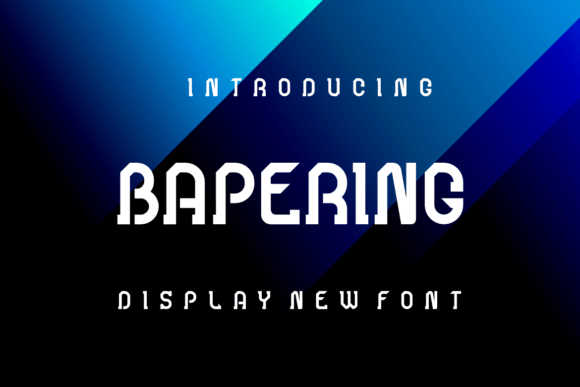
**Bapering Font: Your Key to a Standout Modern Resume**
In the competitive job market, your resume is your ticket to success. Make an unforgettable impression with Bapering Font, designed specifically for modern resumes that demand attention.
Every letter is meticulously crafted to exude sophistication and professionalism. From the sharp angles to the balanced curves, Bapering exudes a sense of confidence and ambition that employers will notice. Its readability ensures that your skills and experiences shine through, while its unique style adds an element of flair that sets you apart.
With Bapering, you're not just submitting a resume – you're making a statement. This font empowers you to showcase your talents and aspirations with style and impact. Embrace the transformative power of Bapering and watch your resume soar to the top of the pile, leaving a lasting impression that will lead you to your dream job.